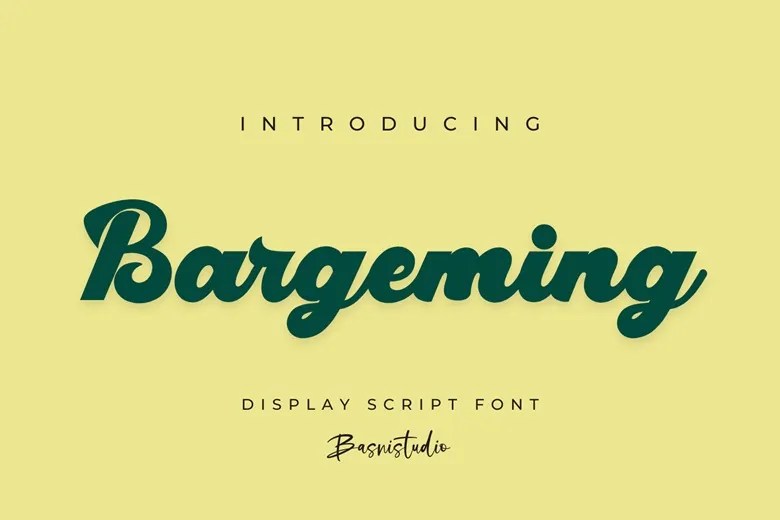
Bargeming Font
Bargeming is a sophisticated display script font designed to add a touch of elegance and personality to your designs. Its graceful strokes and fluid letterforms make it perfect for personalized greeting cards, creative logos, branding, and inspiring quotes. Whether you’re designing social media graphics, website headers, or stylish invitations, Bargeming ensures that every word stands out beautifully.
With its handcrafted script style, this font transforms ordinary text into stunning works of art. Its versatility allows for use in both digital and print designs, making it an excellent choice for projects that demand charm and sophistication.